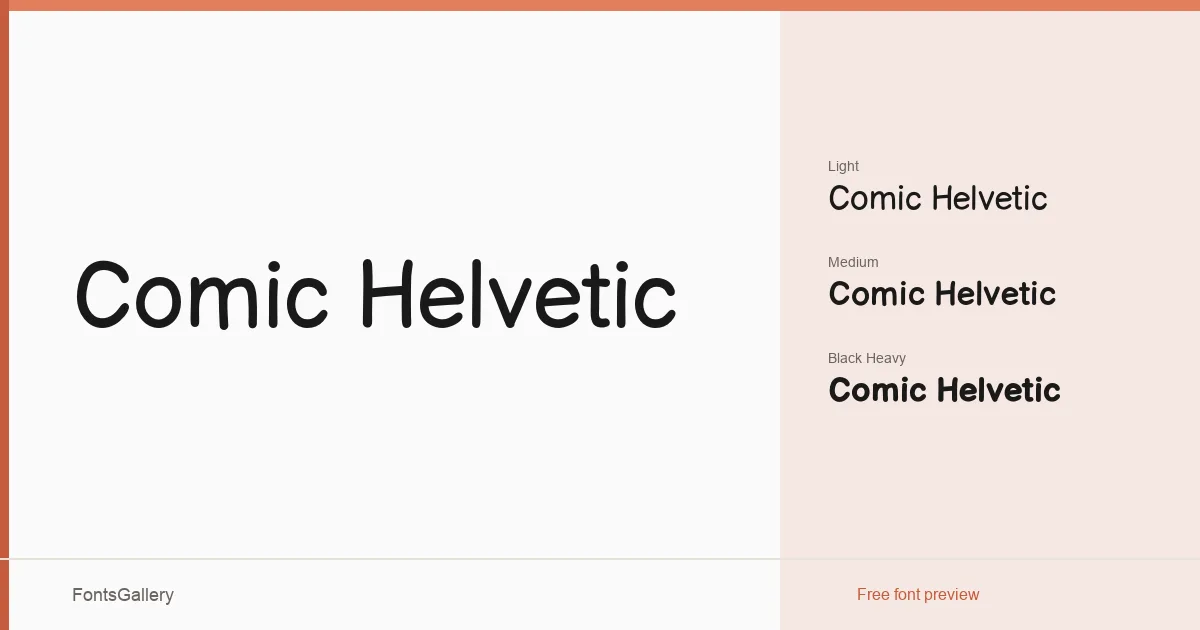
About Comic Helvetic Font
Comic Helvetic is a sans serif typeface designed by Alexander Pravdin under his own foundry. It brings together a bold, modern sensibility with a professional edge, making it a versatile choice for a wide range of design projects. Its clean construction reflects contemporary typographic standards while maintaining strong visual impact.
Comic Helvetic features the crisp, geometric qualities characteristic of modern sans serif typography, with letterforms designed to command attention and project confidence. The bold weight and professional tone give each character a strong presence on the page, ensuring clarity and impact at any scale. Its modern aesthetic makes it well-suited for designs that require a clean yet powerful typographic voice.
Comic Helvetic excels in high-visibility applications such as advertisements, headlines, branding materials, website headers, and signage, where its bold and professional character can truly shine. For complementary pairings, it works beautifully alongside Aresink or Ballmain, both of which can balance and enhance its modern, commanding presence in a layout.